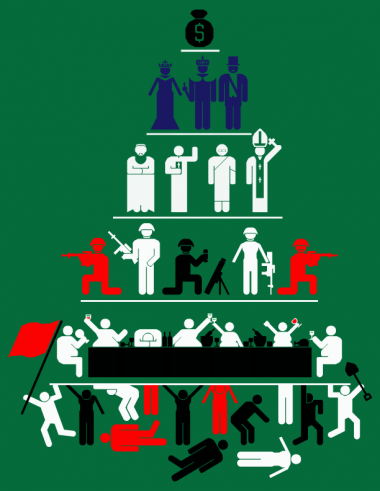
• too late for IlluComp :( still felt motivated :) i've had this inspiration (image below) for a while and probably should have done this as an entry. oh, well. still, this was fun; and i think, more importantly - relevant. reminiscent of Picto People, but not done on the same scale - and not quite as original or inventive.
This should have been your best entry. But maybe this was built on a more than 48 cases high grid and could not entry anyway, because it seems more refined than the other ones. Excellent message work and graphics. A special mention for the guy asleep while the others party while the other die.
And love the pyramid idea of your sample.Really efficient.
thanks, neurone. click link for info on designer who did sample. not my idea and his was a modern update of the original. i checked the height and i probably would have been ok. but no sweat; this would also have been my least original entry, plus i did it using some tracing, so also not the most advanced or true technique. so it's just as good to release it now.
Well done, I'm with you.
Great. Too bad it's late for the Illucomp; this would have won.
Great work. A fine example of Fontstruct rendering. 10/10
Dear Funk_King this was a good project and I downloaded it. However everything is okay but the bottom row. So I use "Y" characters holding up the pyramid & it looks okay & also downloaded the posters. Keep up the good work and I'll keep downloading your material. Mark Titan
Great work.